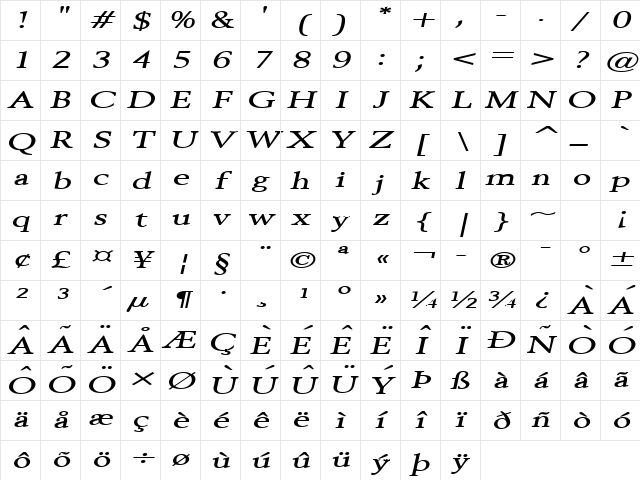
Revive 8 Extended BoldItalic
Design Context for Revive 8 Extended
Revive 8 Extended is a composed and adaptable typeface that performs quietly and consistently across a wide range of design contexts. The slanted form adds forward momentum and visual energy. Its bold stroke weight gives it real presence on the page.
Pro Tip: Use Revive 8 Extended for emphasis, pull quotes, and subheadings where its slanted energy can add rhythm to the layout.